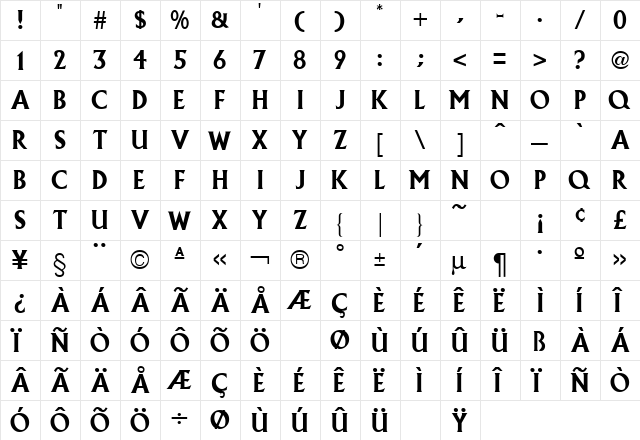
Alexander Bold
Design Context for Alexander Typeface
Alexander offers clean, dependable letterforms without strong stylistic allegiance, making it a practical choice for designers who need flexibility. The heavy weight commands attention and anchors typographic hierarchies.